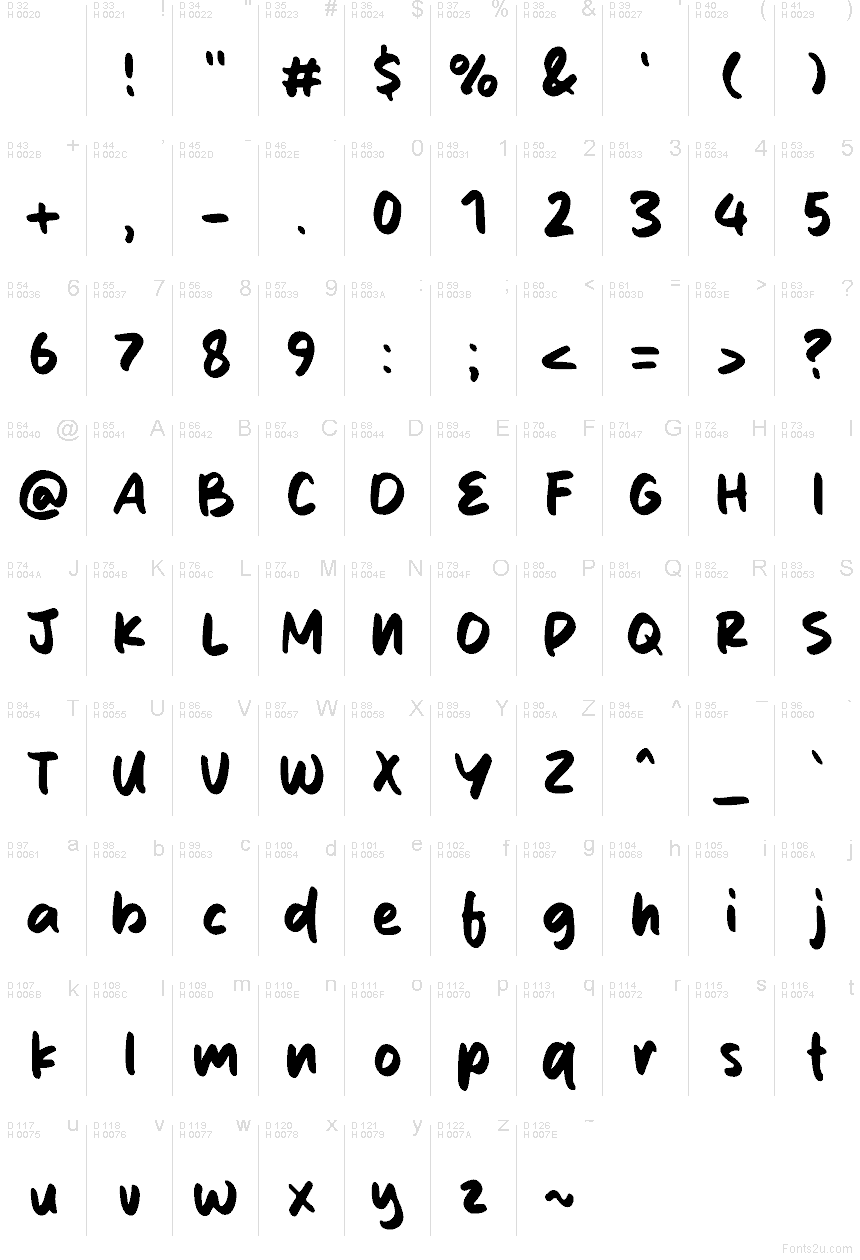
Rilyona
Rilyona font by Origin Type is a free brush font that captures the feel of bold marker lettering without losing control or clarity. Thick, inky strokes and rounded corners give it a friendly, confident voice, while the smooth rhythm between letters makes words look naturally hand-written, not stiff or overpolished. It’s the kind of typeface that feels like it was painted in one go—thick, juicy, and ready to stand out.
Using Rilyona, this free font shines on logo wordmarks, product packaging, quote graphics, posters, handmade-style branding, YouTube thumbnails, and event flyers where you want warmth with a bit of punch. Its solid shapes stay legible at smaller sizes, yet really come alive when you scale it up. For a balanced look, pair Rilyona with a simple geometric sans serif for body text or supporting details.